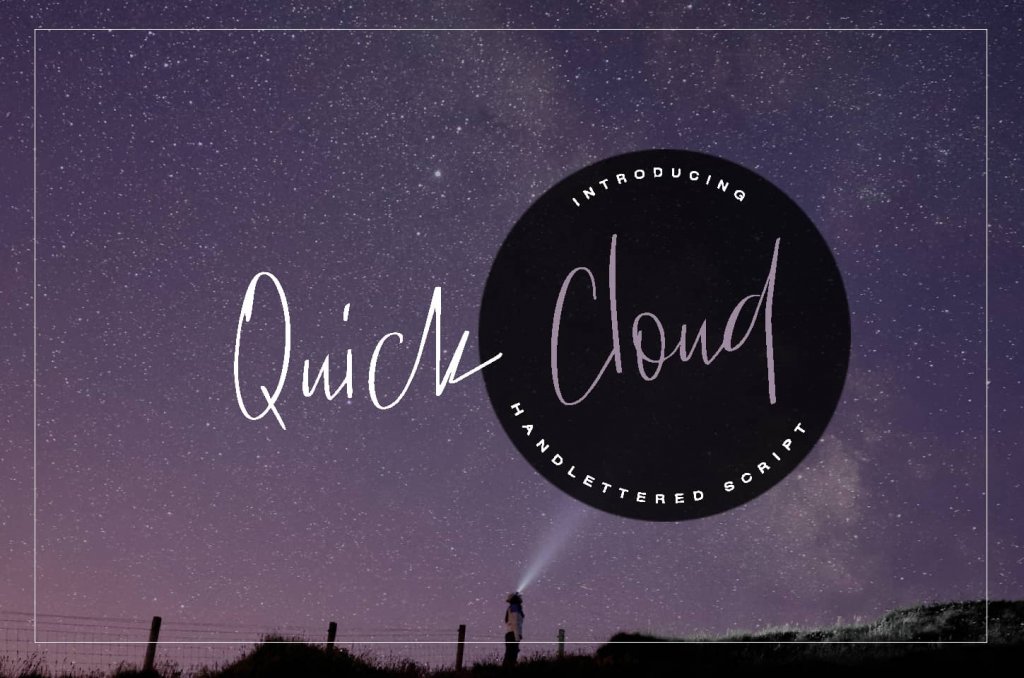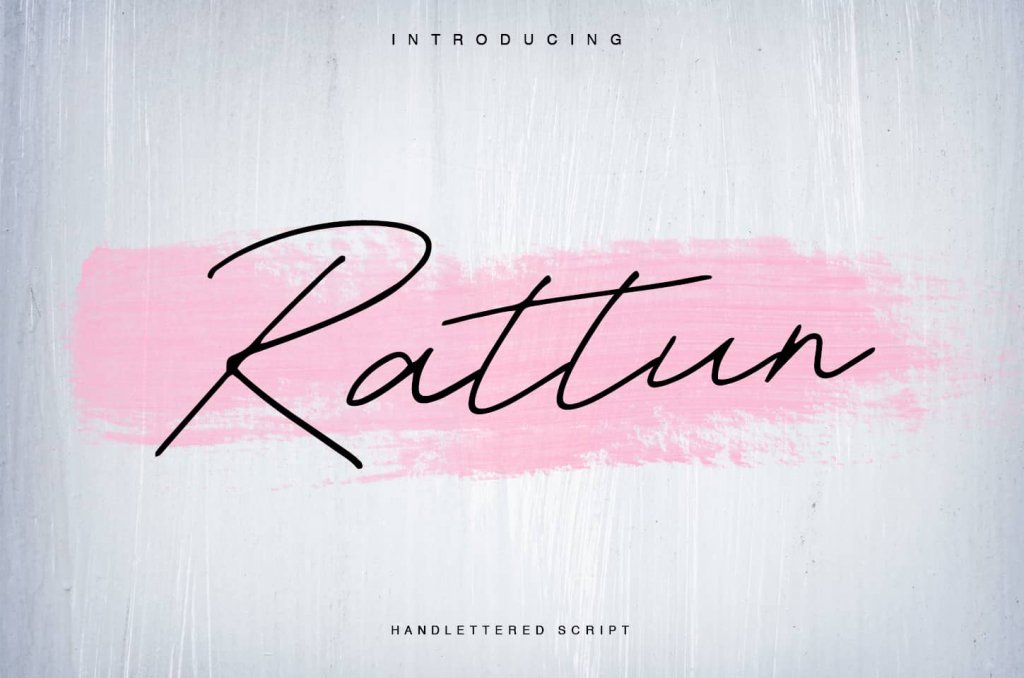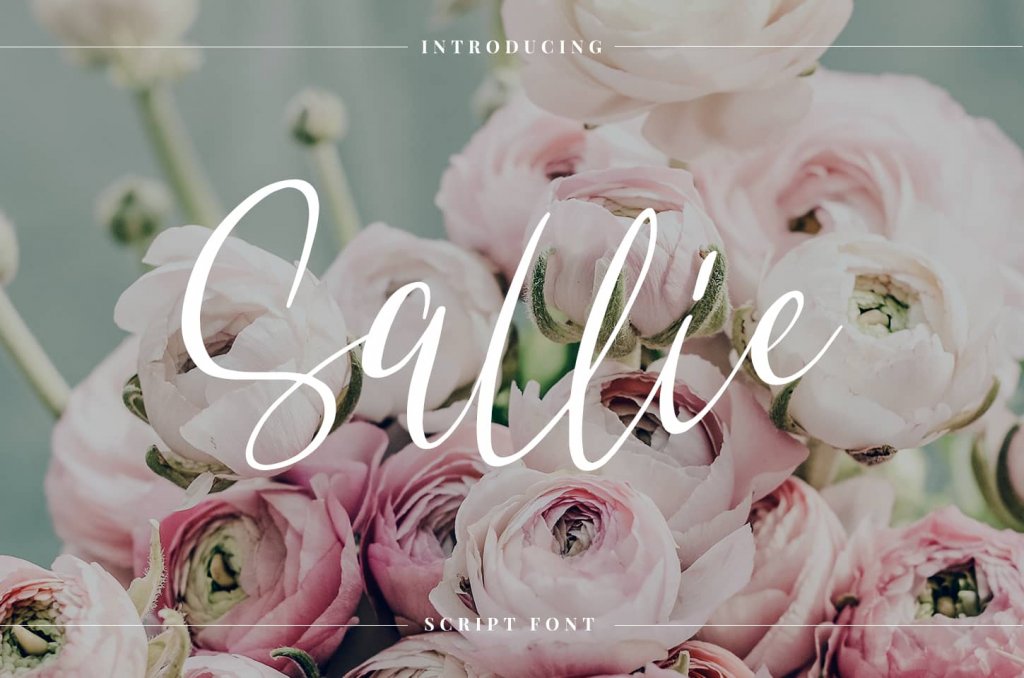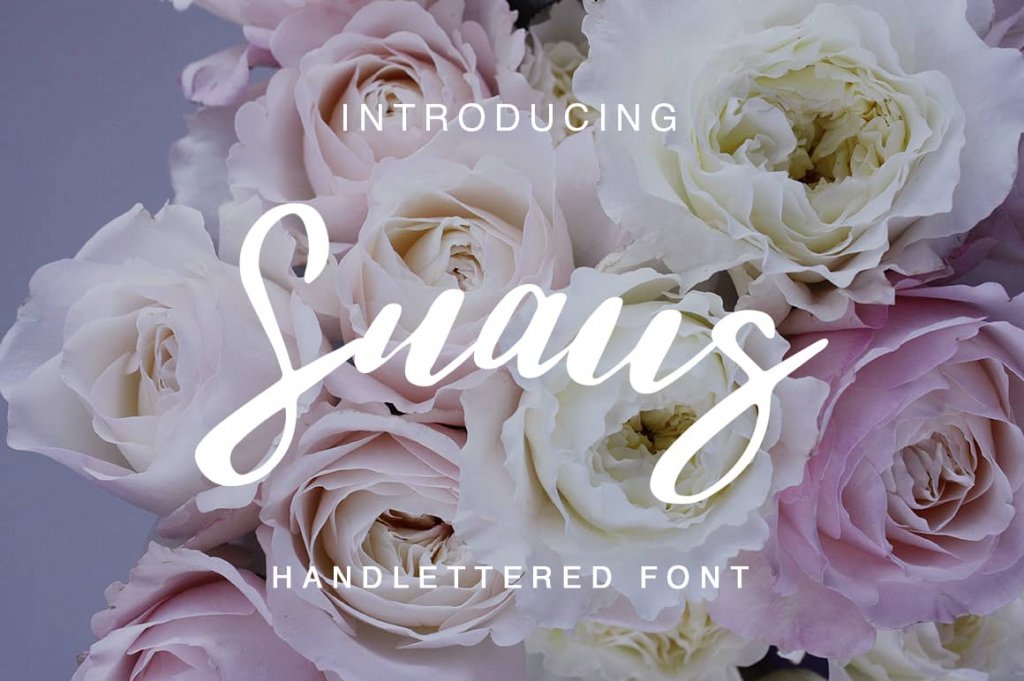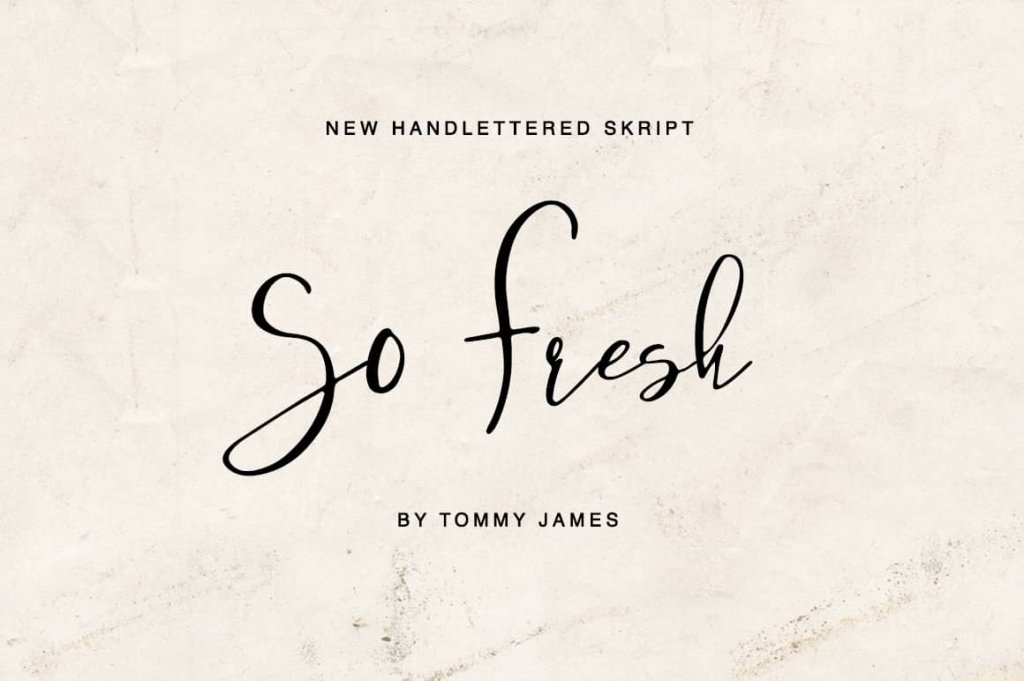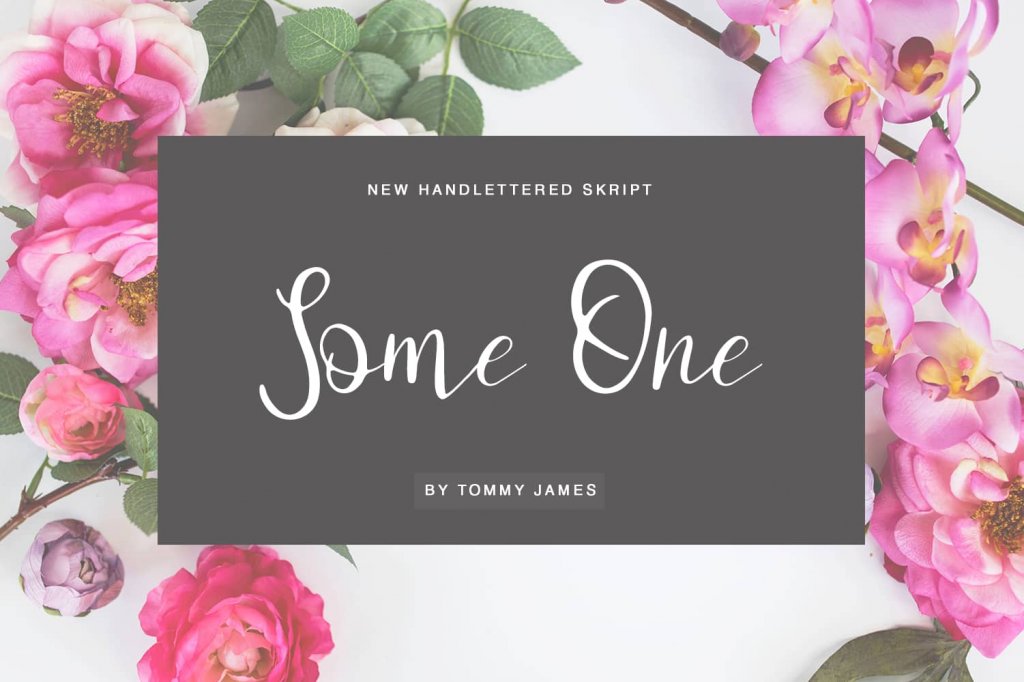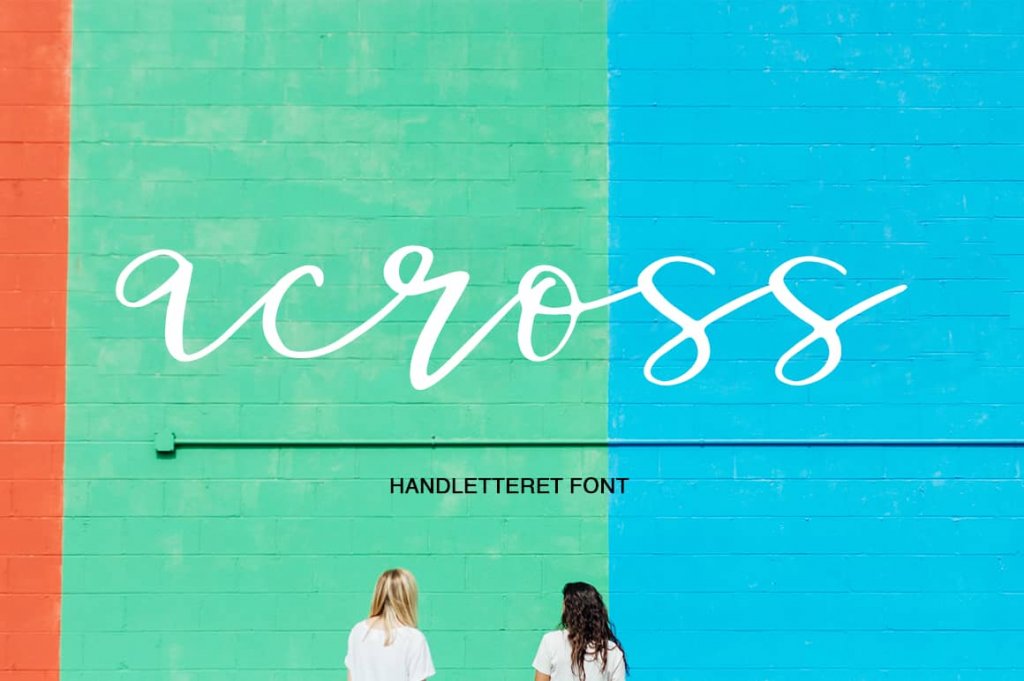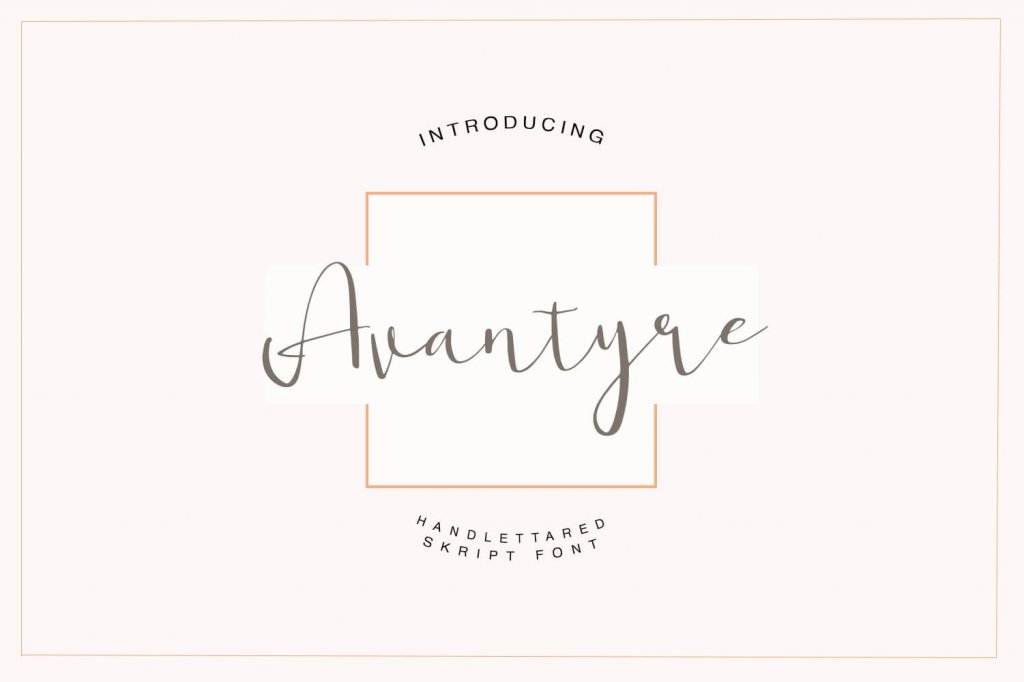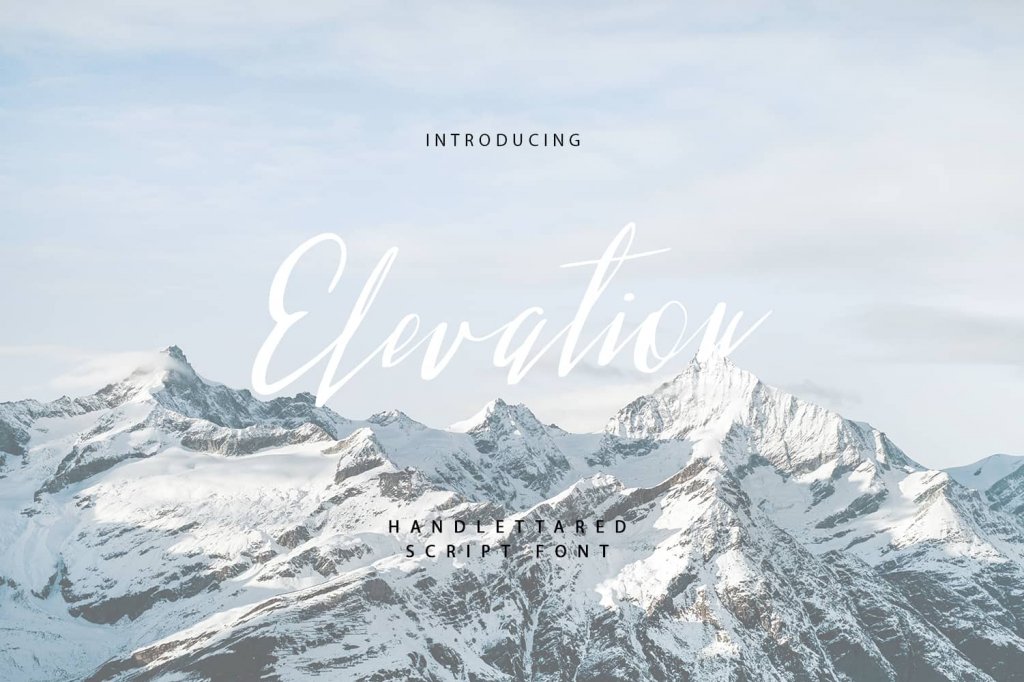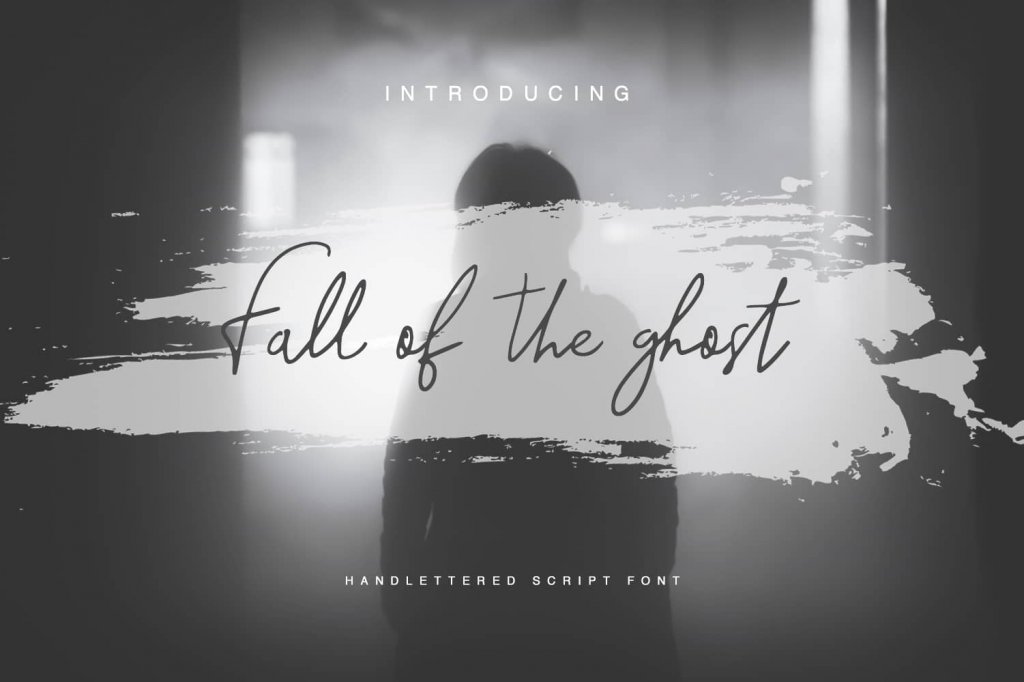
With this deal, we bring you The Eternal Fonts Bundle. This bundle includes 60+ creative serif fonts such as Beginning, Calligraphic, Cinthia, Glimpse, Horizon and much more!
quick cloud hand lettered script font included in the eternal fonts
rattun hand lettered script font included in the eternal fonts
sallie hand lettered script included in the eternal fonts
sloothine hand lettered script font included in the eternal fonts
suaug hand lettered script font included in the eternal fonts
so fresh hand lettered script font included in the eternal fonts
some one hand lettered script font included in the eternal fonts
across hand lettered script font included in the eternal fonts
avantyre hand lettered script font included in the eternal fonts
beginning hand lettered script font included in the eternal fonts
bilmatter font included in the eternal fonts
cinthia font - handlettered font included in the eternal fonts
dammiano hand lettered script font included in the eternal fonts
elevation hand lettered script font included in the eternal fonts
embrian hand lettered script font included in the eternal fonts
exella hand lettered script font included in the eternal fonts
fall of the ghpost hand lettered script font included in the eternal fonts
gamodora hand lettered script font included in the eternal fonts
glimpse hand lettered script font included in the eternal fonts
horizon handlettered script font included in the eternal fonts
• 60+ creative Serif fonts
• Wide range of styles – from classically elegant to stylish modern